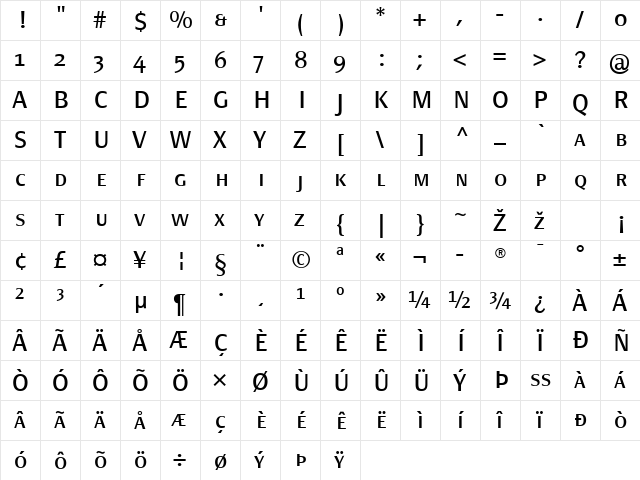
PageSans-RegularSC Regular Font Preview
PageSans-RegularSC Regular
PageSans-RegularSC Regular Font Details
| Foundry | Albert Boton, published by FontShop International for the FontFont Library |
| Designer | Albert Boton |
Design Context for PageSans-RegularSC Typeface
PageSans-RegularSC offers clean, dependable letterforms without strong stylistic allegiance, making it a practical choice for designers who need flexibility.